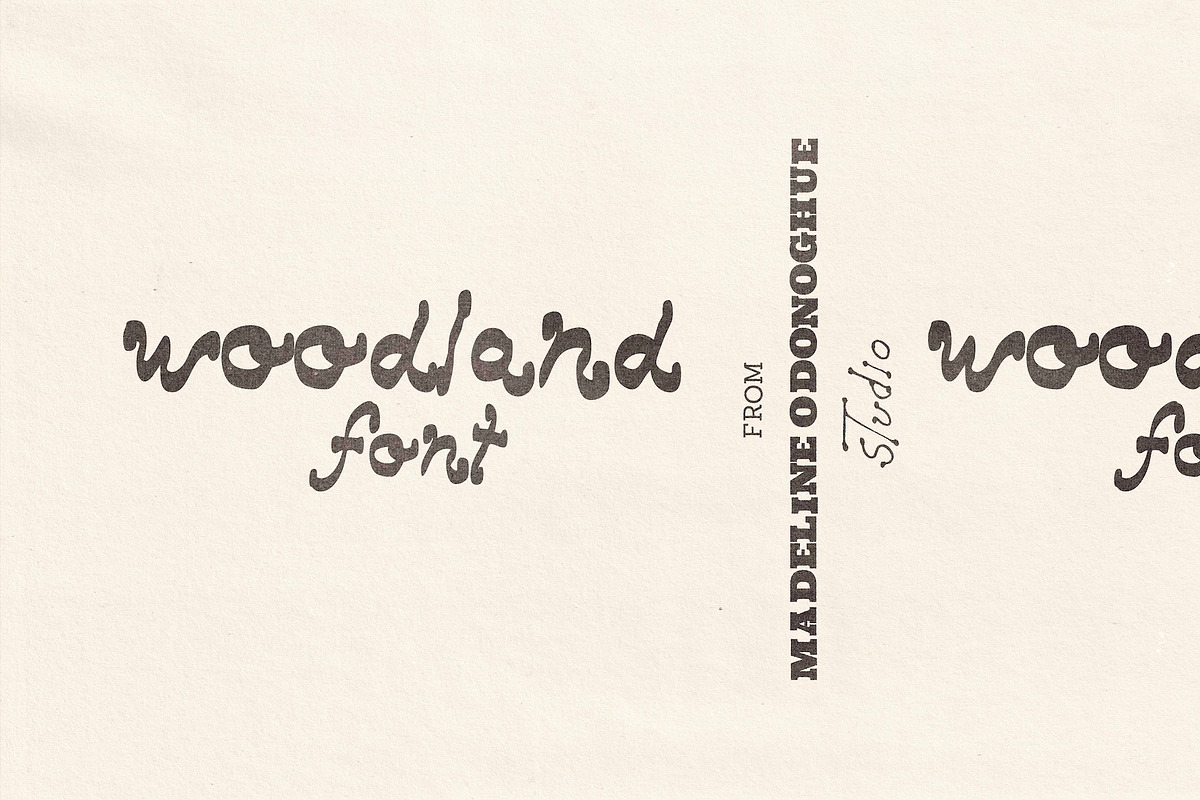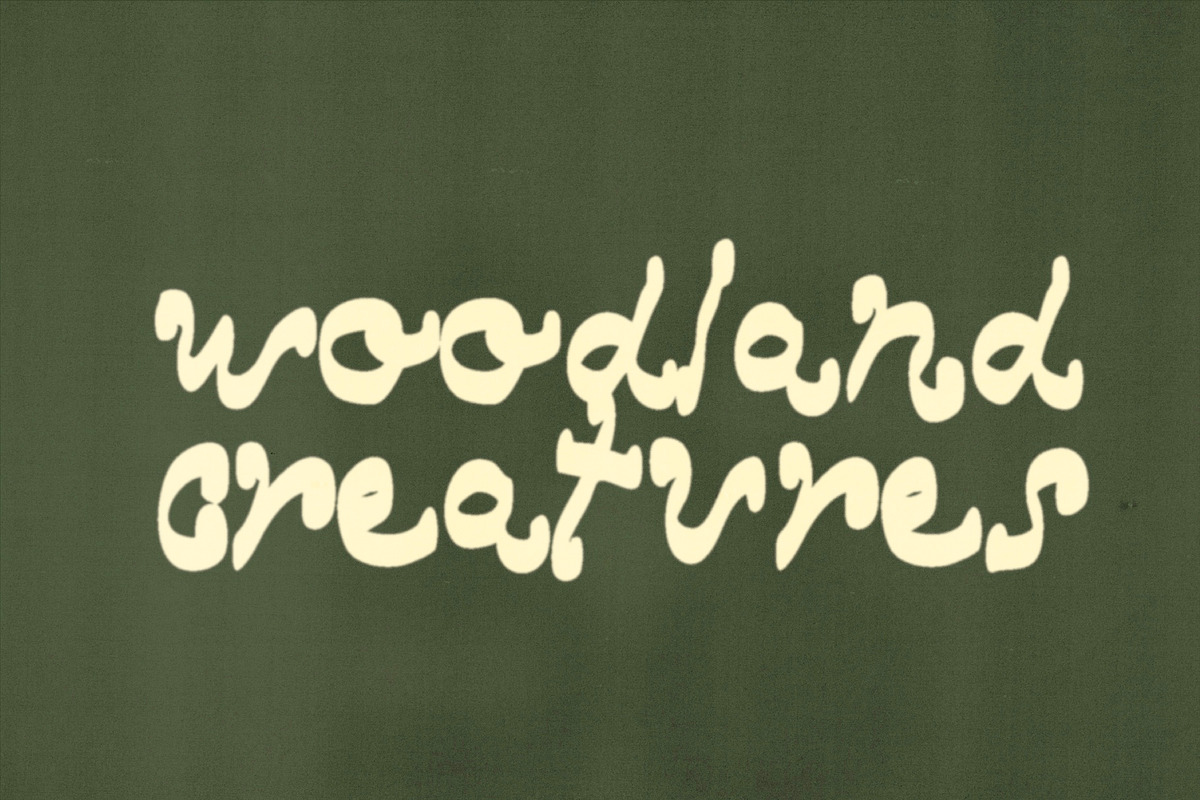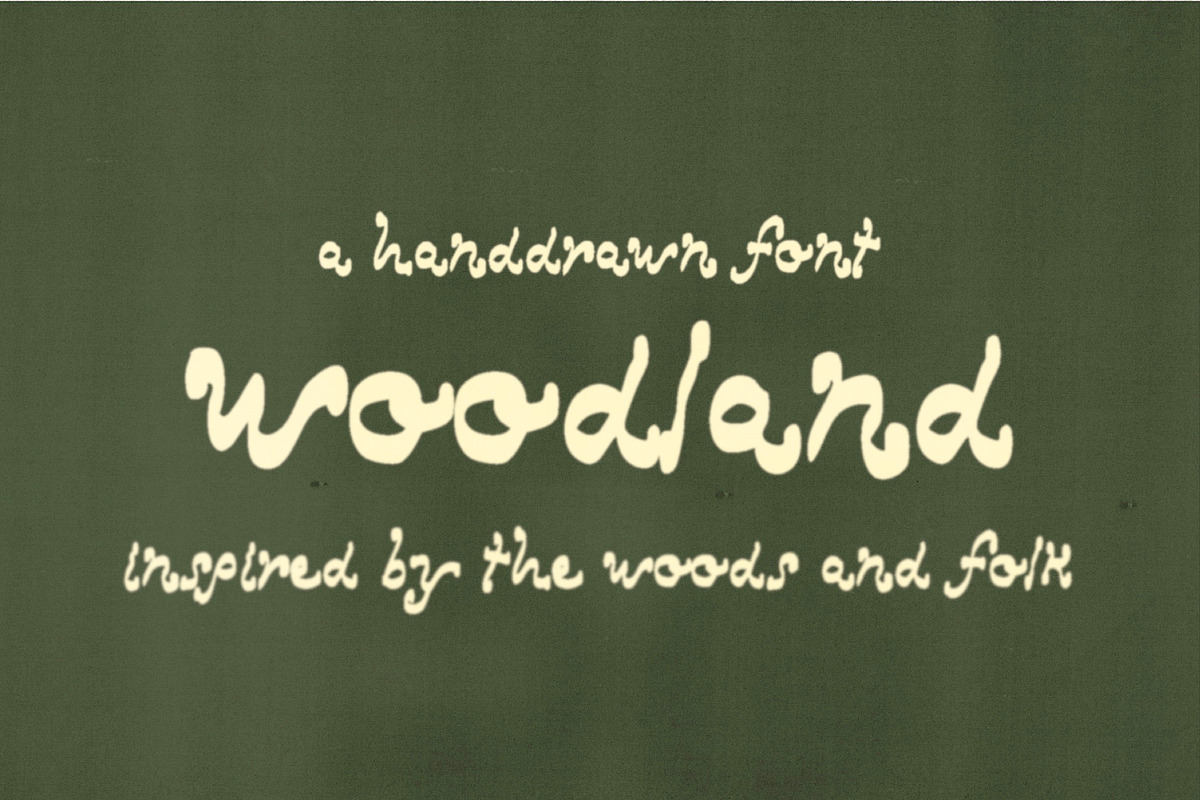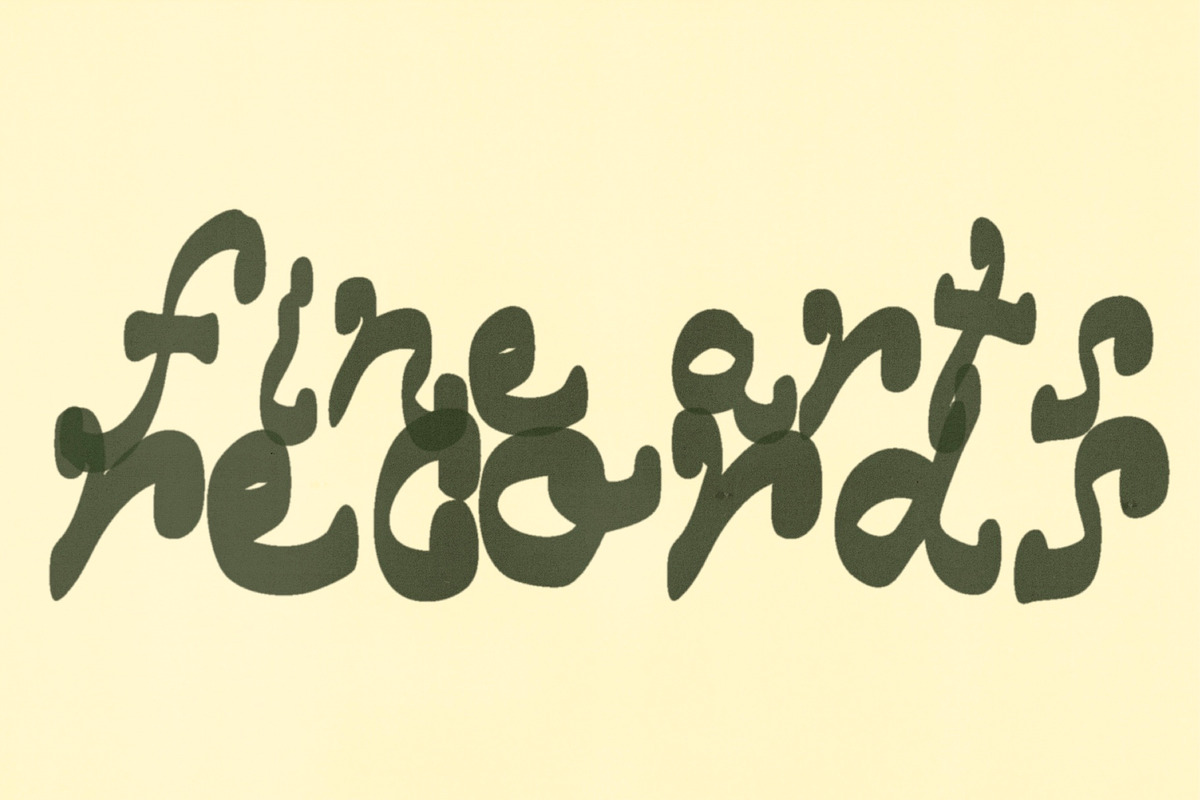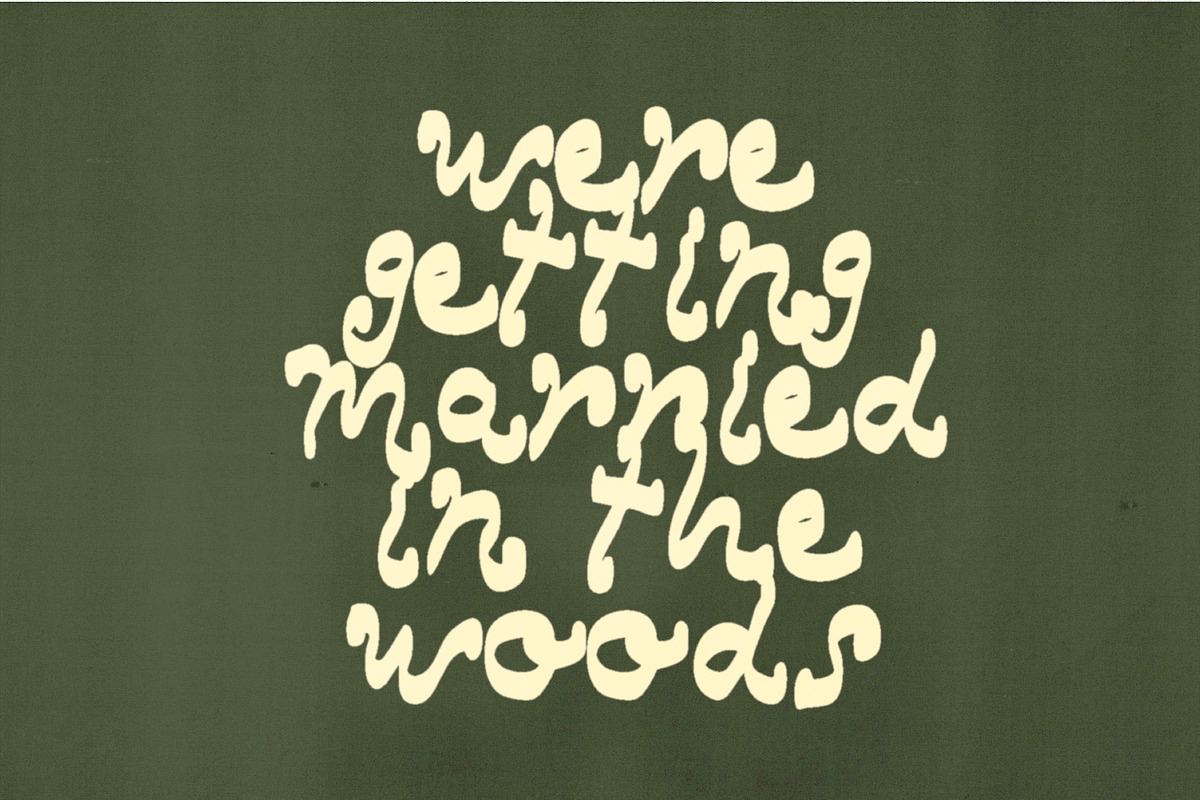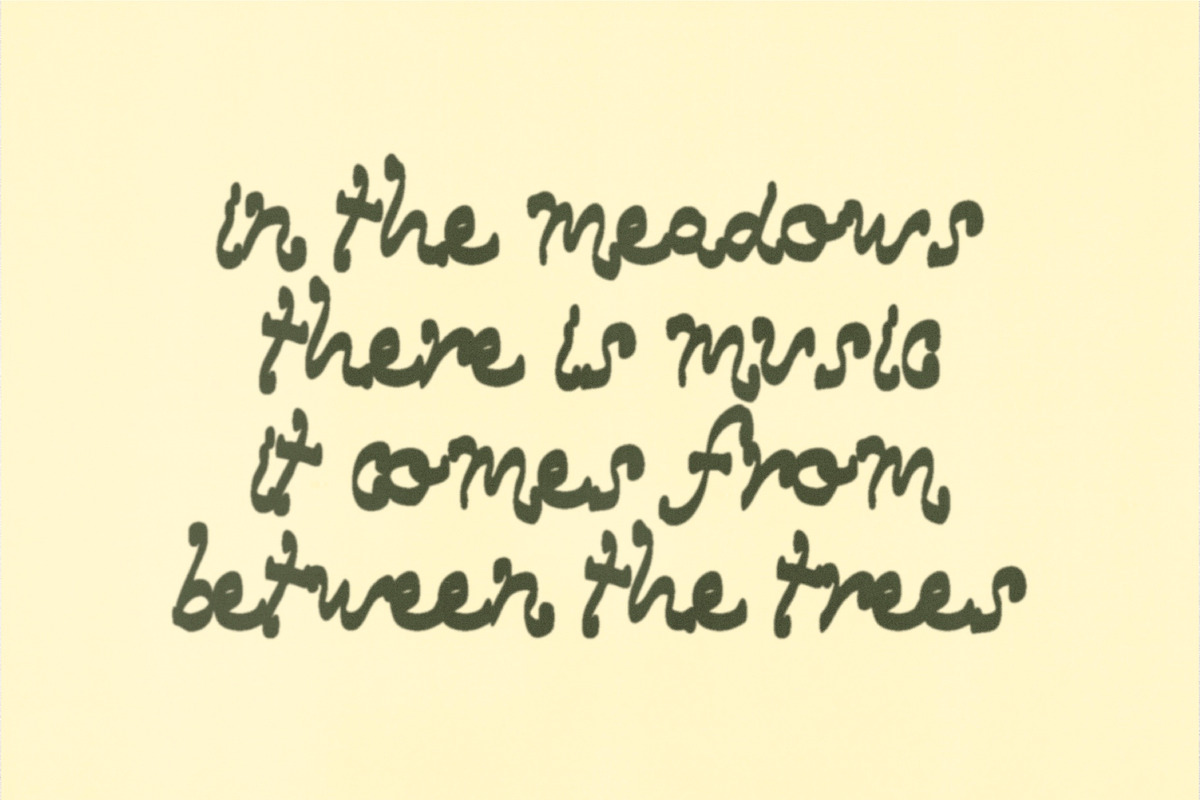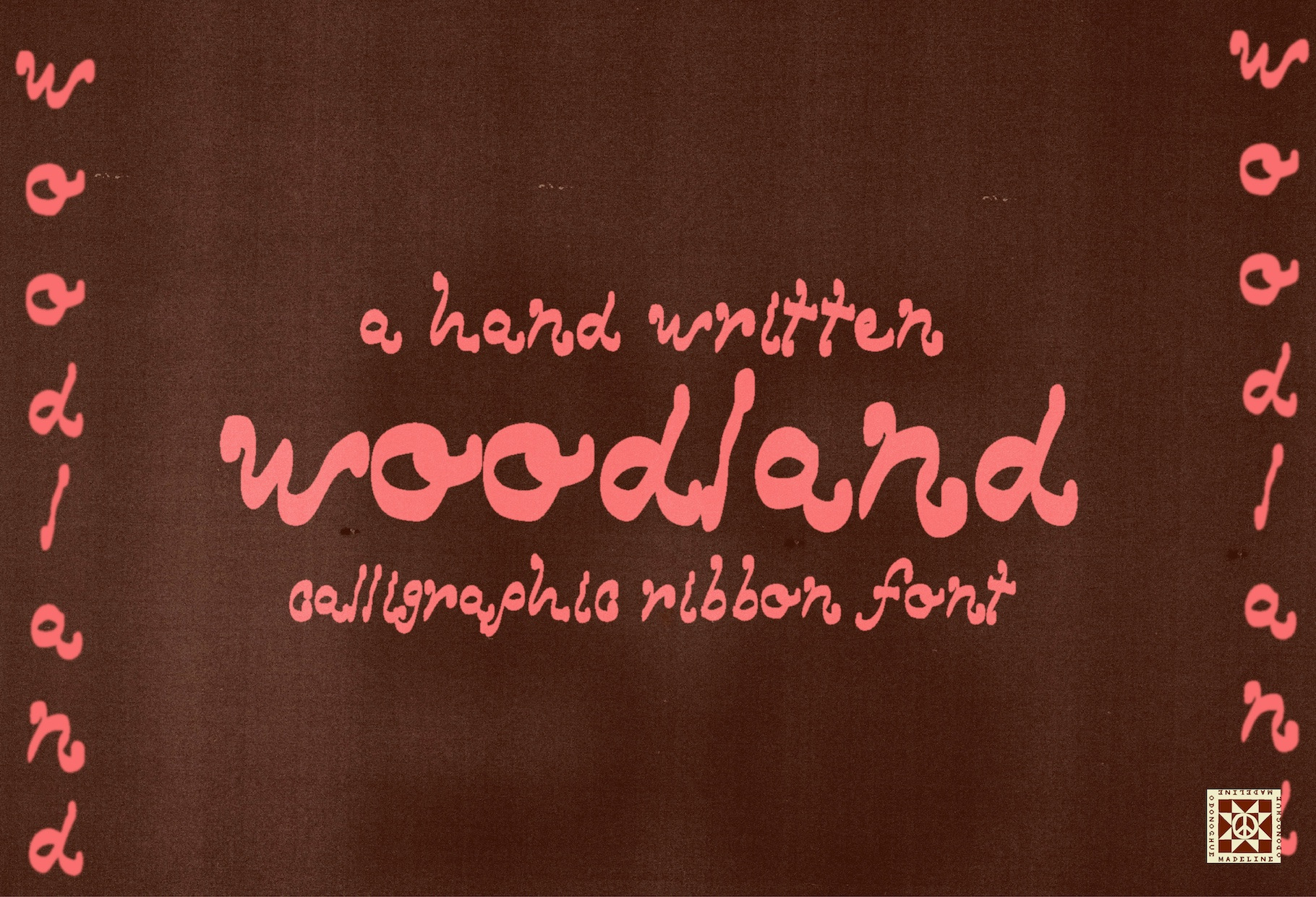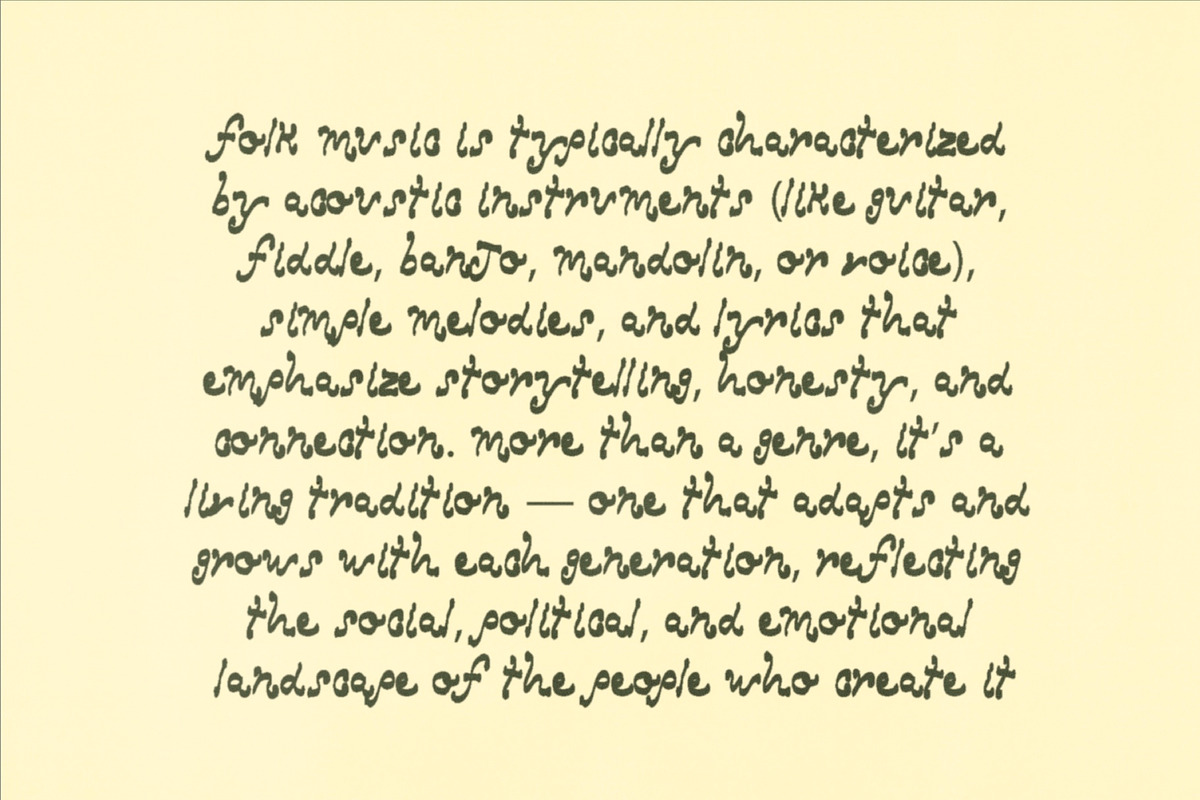
Woodland Hand Drawn Marker Font
Woodland is a hand-drawn display font shaped by the forest — by rustling leaves, gentle winds, hidden creatures, and the quiet rhythms of nature. It carries the feeling of storytelling whispered among the trees and the soft, organic patterns of life in the woods.
Drawn loosely and entirely in lowercase, Woodland has a chunky, handwritten rhythm — imperfect in all the right ways. The letters feel organic and warm, like pencil sketches on a wooden table or markings from a well-loved marker. It’s both whimsical and grounded, evoking the charm of handmade craft and natural textures.
Use Woodland anywhere you want a sense of charm, imperfection, and authentic, human touch. Adjust the spacing to suit your design — spread out for a gentle, airy feel, or tighten for a bold connected effect.
Use it for anything that needs a little charm, imperfection, and handmade honesty. Adjust the letter spacing to find your own flow — spread out for a softer look, or tight for a bold, bark-like texture.
Music posters, album art, and film titles
Branding with a hand-drawn, folk-inspired edge
Children’s projects, storybook lettering, or woodland creature themes
Anything needing a chunky, organic marker feel